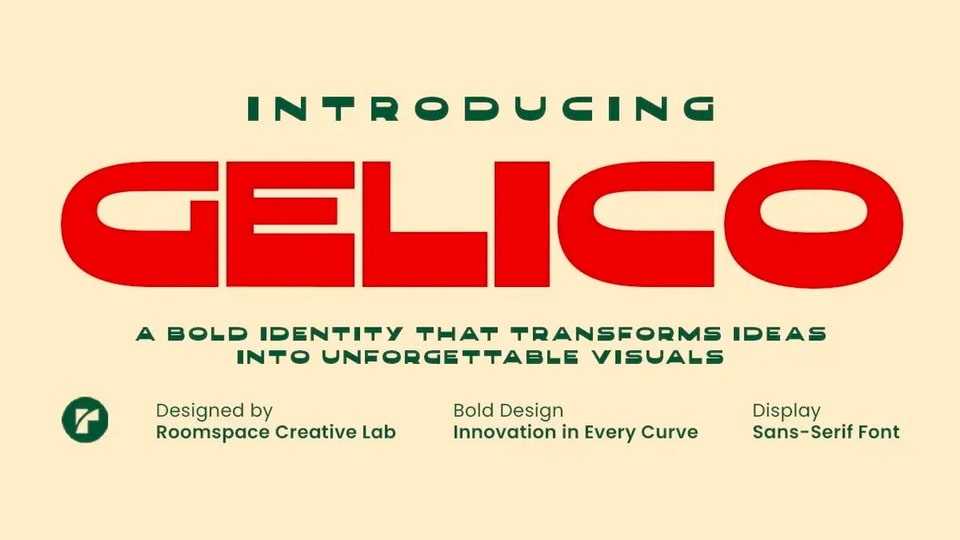
Gelico Font › Fontesk – Fonte Grátis
Download Gelico font, a bold condensed display typeface crafted to deliver strong impact and modern appeal. With its sleek condensed form, Gelico combines boldness and simplicity.